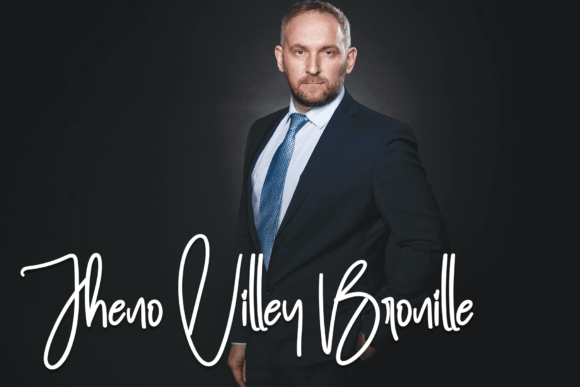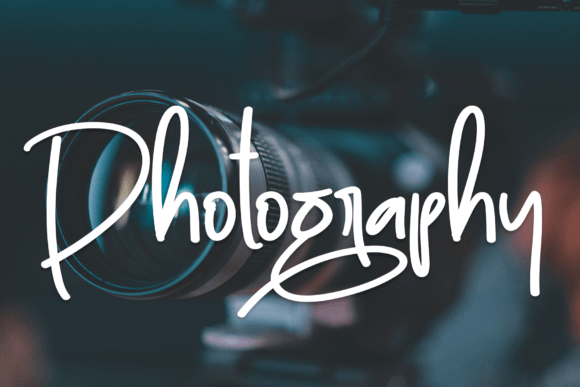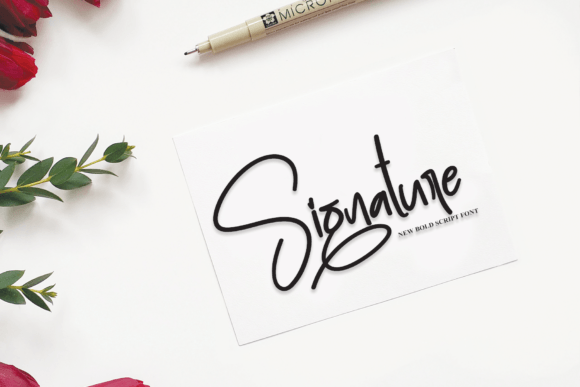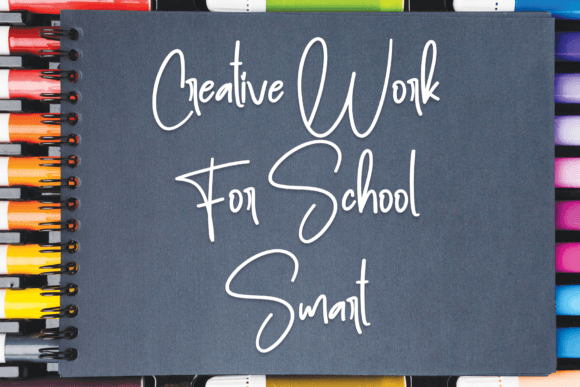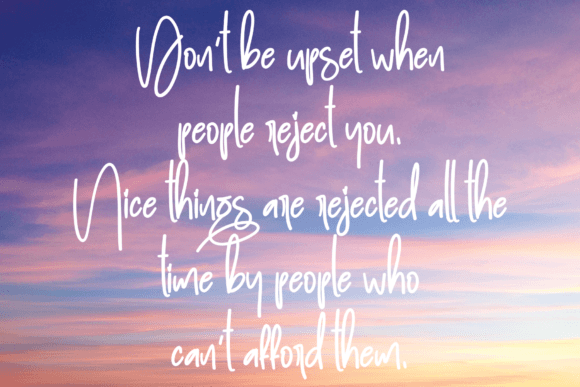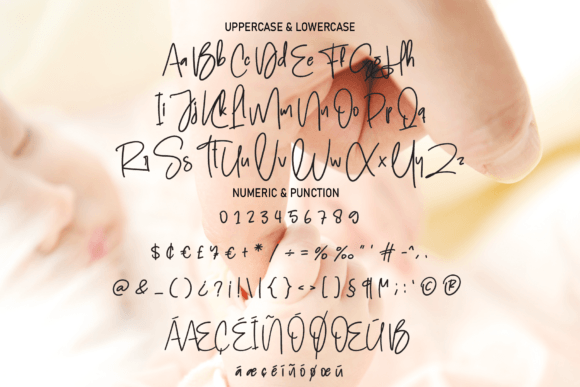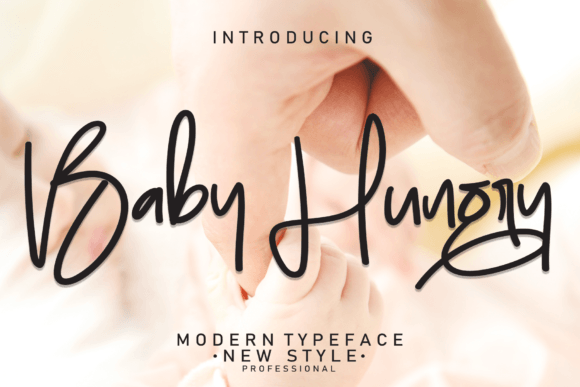
Baby Hungry Font: The Perfect Handwritten Style for Your Creative Projects
Are you a designer or crafter looking for a unique and playful font to add a personal touch to your projects? Look no further than Baby Hungry Font! This adorable handwritten font is perfect for a variety of creative endeavors, from wall displays and wedding invitations to social media post logos and product packaging.
What is Baby Hungry Font?
Baby Hungry Font is a carefully crafted handwritten font that exudes a sense of playfulness and charm. Its latest style letters are designed to add a touch of whimsy and personality to any project. With its unique and eye-catching design, Baby Hungry Font is sure to make your creations stand out from the crowd.
Uses for Baby Hungry Font
The versatility of Baby Hungry Font makes it an excellent choice for a wide range of projects, including:
- Wall Displays: Add a personal touch to your wall art with Baby Hungry Font. Its playful design is perfect for creating eye-catching displays that will grab attention.
- Wedding Invitations: Make your wedding invitations truly special with Baby Hungry Font. Its elegant yet playful design will set the tone for a memorable and joyous occasion.
- Social Media Post Logos: Give your social media posts a professional yet playful touch with Baby Hungry Font. Its unique design will help your brand stand out in a crowded online space.
- Advertisements: Add a touch of personality to your advertisements with Baby Hungry Font. Its eye-catching design is sure to grab attention and leave a lasting impression.
- Product Packaging: Give your products a personal touch with Baby Hungry Font. Its playful design is perfect for creating eye-catching packaging that will make your products stand out on store shelves.
- Product Designs: Add a touch of whimsy to your product designs with Baby Hungry Font. Its unique design is perfect for creating one-of-a-kind products that will appeal to customers.
- Labels: Create eye-catching labels with Baby Hungry Font. Its playful design is perfect for adding a personal touch to your products.
- Photography: Add a touch of personality to your photography with Baby Hungry Font. Its elegant design is perfect for creating beautiful watermarks that will protect your images.
- Watermarks: Protect your images with style using Baby Hungry Font. Its unique design is perfect for creating eye-catching watermarks that will add a touch of personality to your photography.
- Invitations: Make your invitations truly special with Baby Hungry Font. Its playful design is perfect for creating eye-catching invitations that will set the tone for a memorable occasion.
- Stationery: Add a touch of personality to your stationery with Baby Hungry Font. Its elegant design is perfect for creating beautiful and functional stationery that will make your correspondence stand out.
Why Choose Baby Hungry Font?
There are many reasons why Baby Hungry Font is the perfect choice for your creative projects. Here are just a few:
- Unique Design: Baby Hungry Font features a unique and eye-catching design that will make your projects stand out from the crowd.
- Playful Personality: Baby Hungry Font has a playful personality that is perfect for adding a touch of whimsy to your projects.
- Versatility: Baby Hungry Font is versatile and can be used for a wide range of projects, from wall displays and wedding invitations to social media post logos and product packaging.
- Elegant yet Playful: Baby Hungry Font strikes the perfect balance between elegance and playfulness, making it perfect for a wide range of creative endeavors.
Tips for Using Baby Hungry Font
Here are a few tips for getting the most out of Baby Hungry Font:
- Experiment with Different Sizes: Baby Hungry Font looks great in a variety of sizes, so don’t be afraid to experiment and find the perfect size for your project.
- Pair with Other Fonts: Baby Hungry Font pairs well with a variety of other fonts, so try pairing it with different fonts to create a unique and eye-catching design.
- Use for Headings and Titles: Baby Hungry Font is perfect for headings and titles, so try using it to add a touch of personality to your project.
- Add a Personal Touch: Baby Hungry Font is perfect for adding a personal touch to your project, so don’t be afraid to get creative and add your own unique touch.
In conclusion, Baby Hungry Font is a versatile and playful font that is perfect for a wide range of creative projects. Its unique design and elegant yet playful personality make it an excellent choice for designers and crafters looking to add a personal touch to their work. Whether you’re creating wall displays, wedding invitations, social media post logos, or product packaging, Baby Hungry Font is sure to make your creations stand out from the crowd.